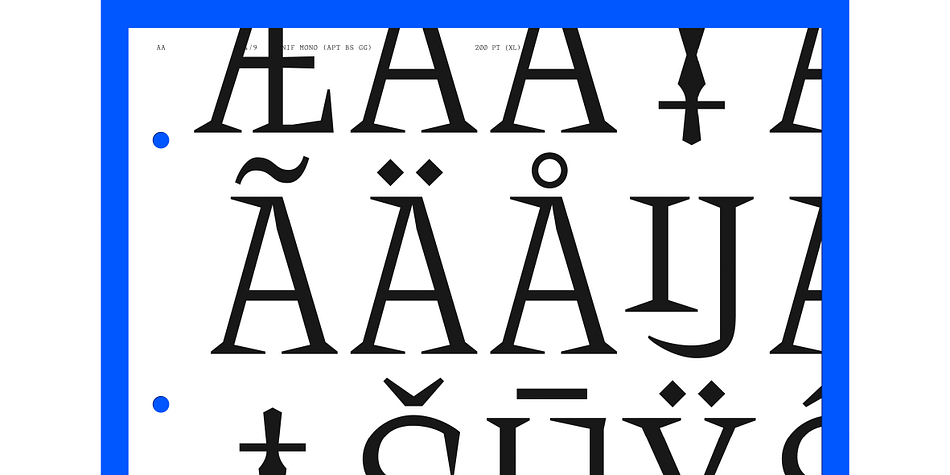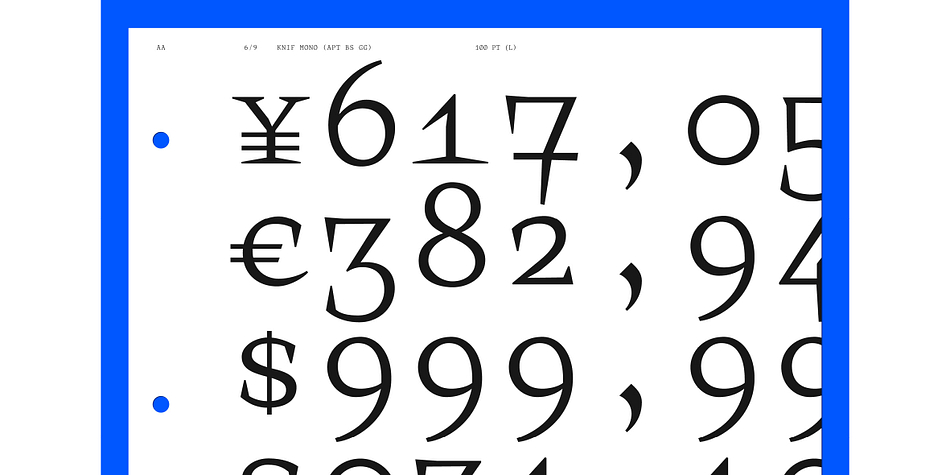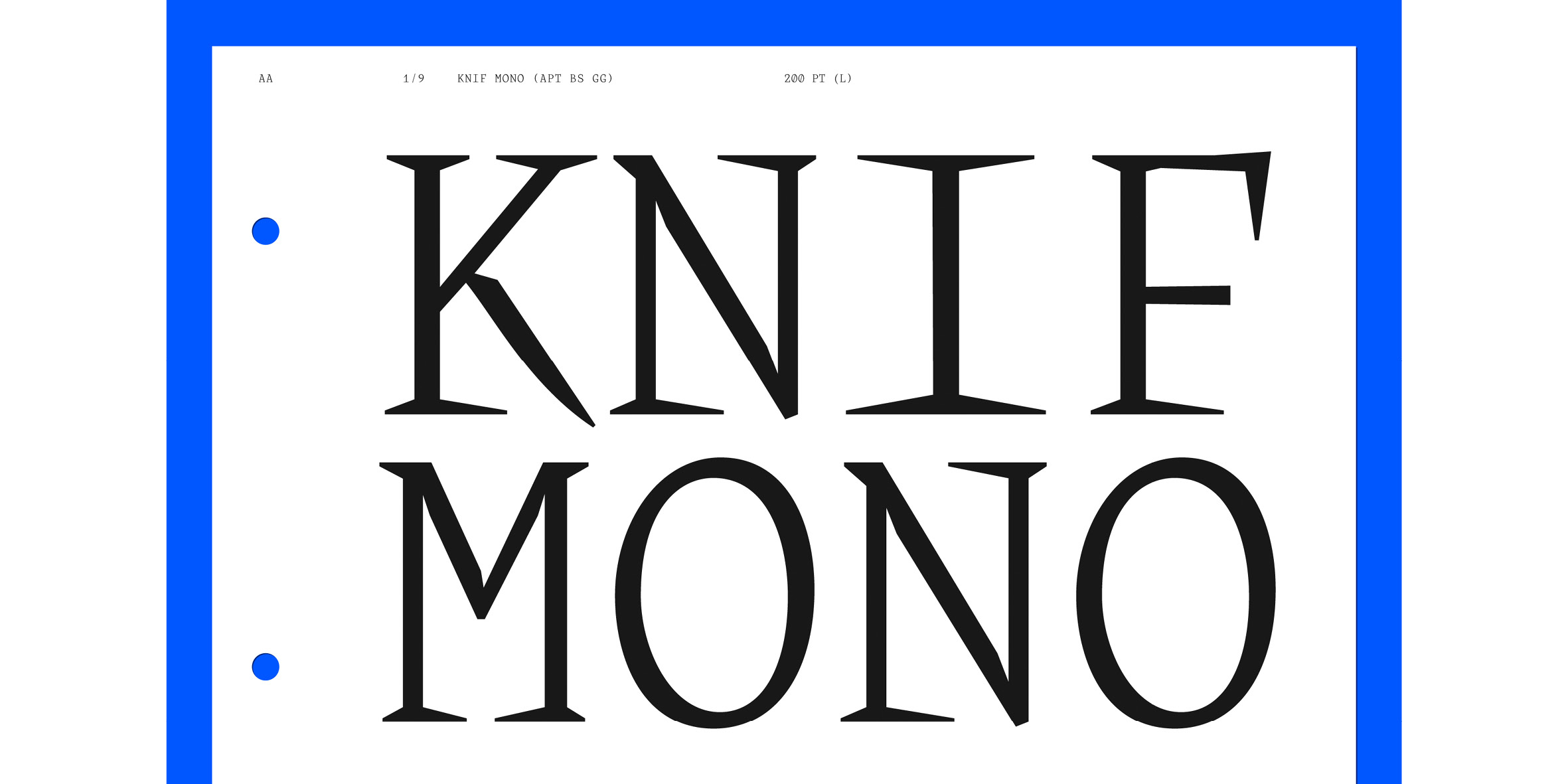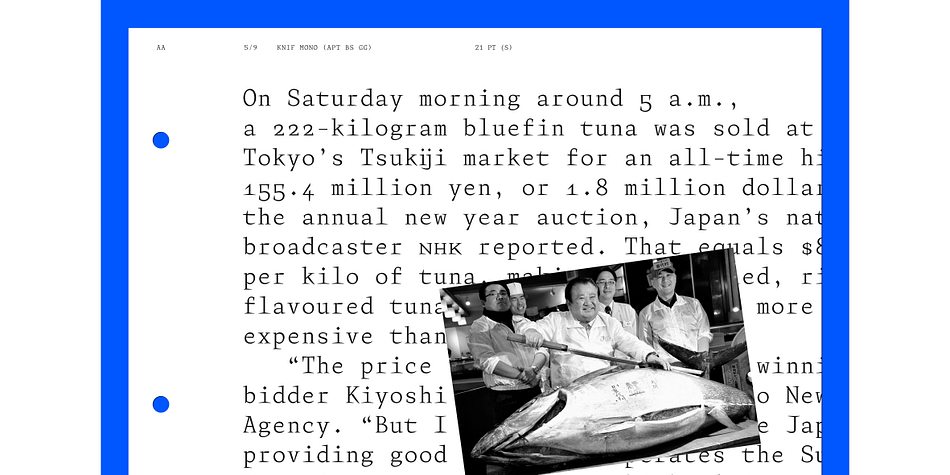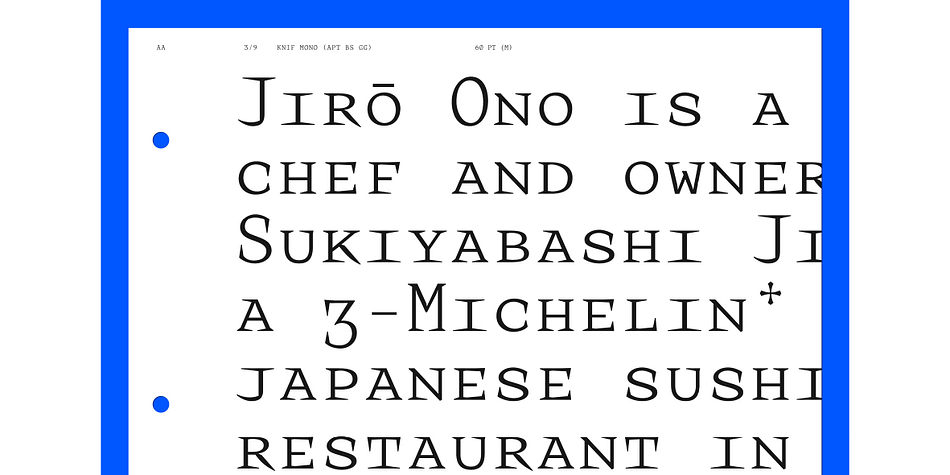
Designed by Guillaume Grall, Axel Pelletanche-Thévenart and Benoit Santiard, Knif Mono is a serif and typewriter font family. This typeface has two styles and was published by A is for...
Knif (pronounce [Ka-neef]) is an acute and sharp-as-a-knife monospaced typeface. Its starkness results from a very short and intense design process.
Knif is the product of a team of 4 french people: It has been designed by Axel Pelletanche-Thévenart under the artistic direction of Guillaume Grall and Benoît Santiard, then Émilie Rigaud, head of “A is for… type foundry”, took care of the production of the final typeface.